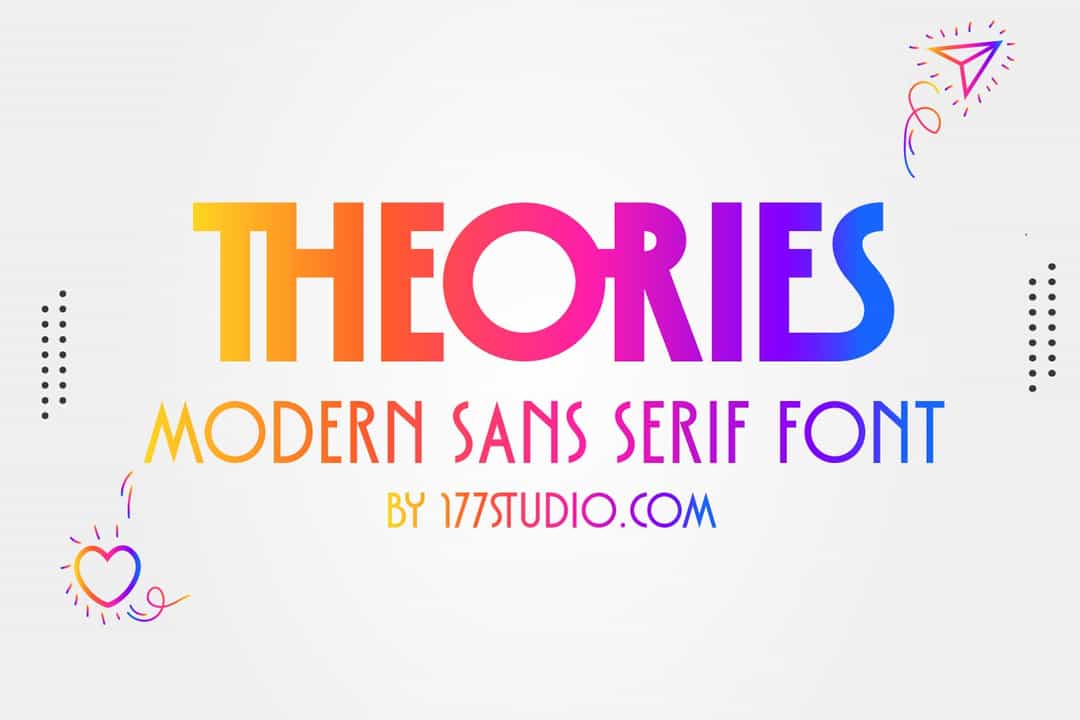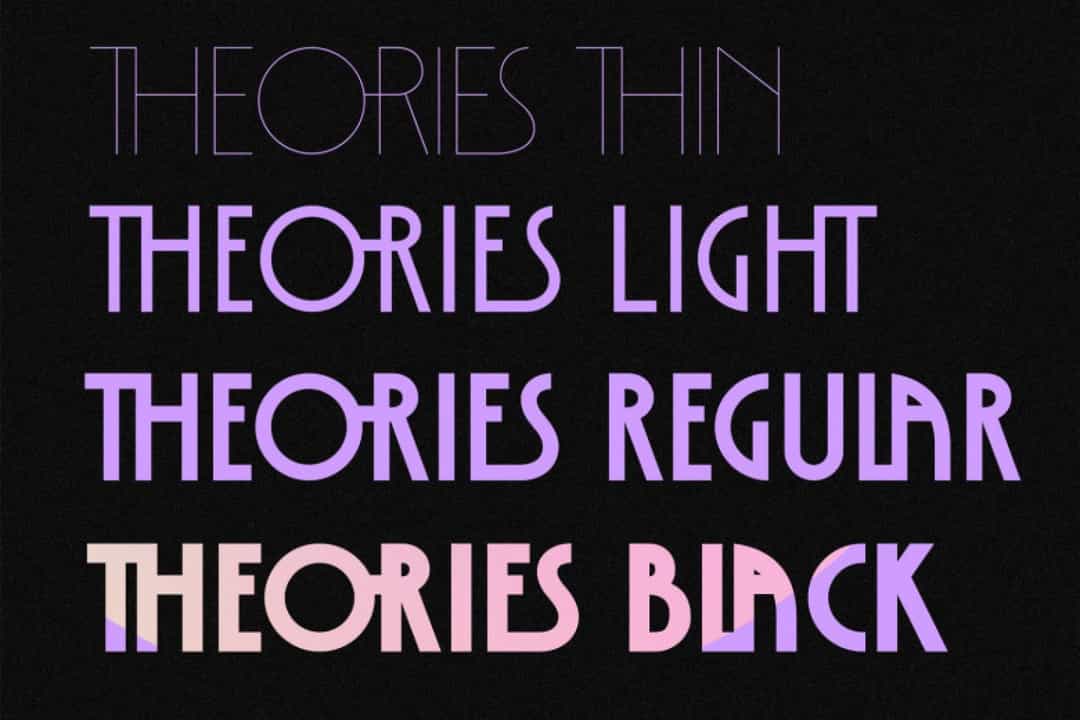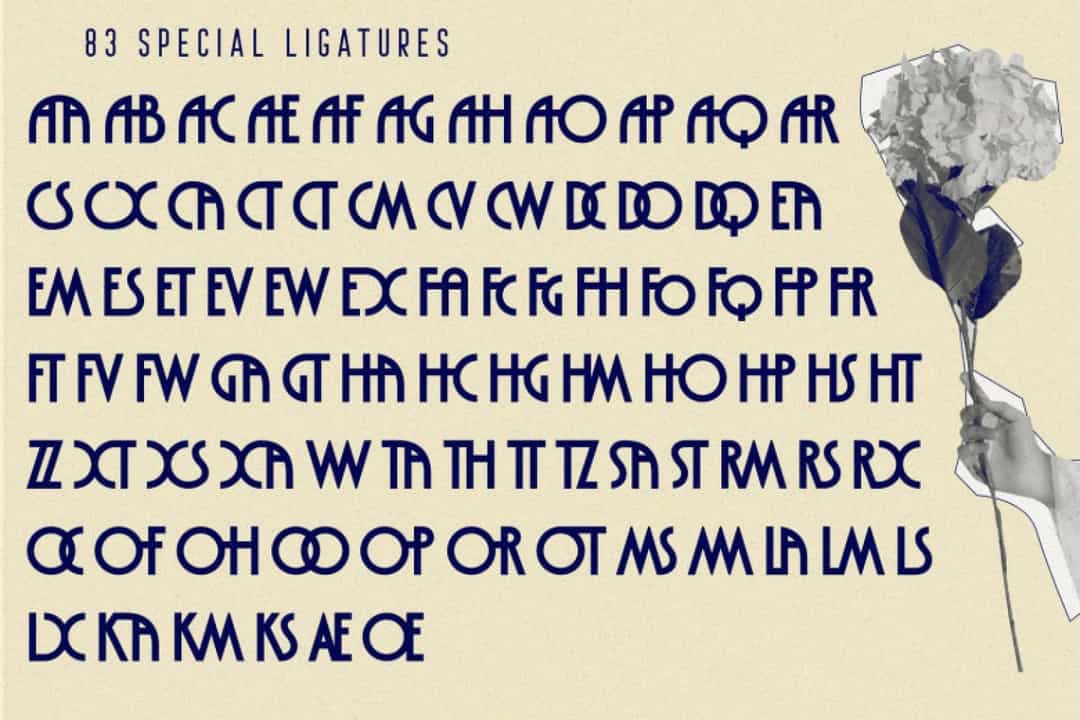
Theories Font is an elegant and contemporary sans serif typeface. A unique mix of old and new styles, Theories Font can be used in both small and large sizes for logos, branding designs, clothing branding packages for products magazine headers or as text overlay on images. It makes an excellent text overlay over any background photo.